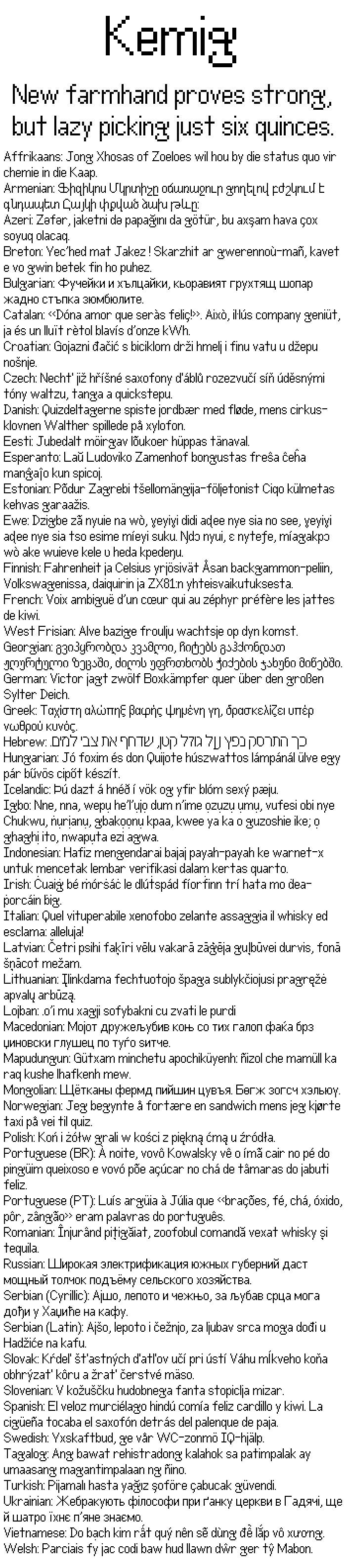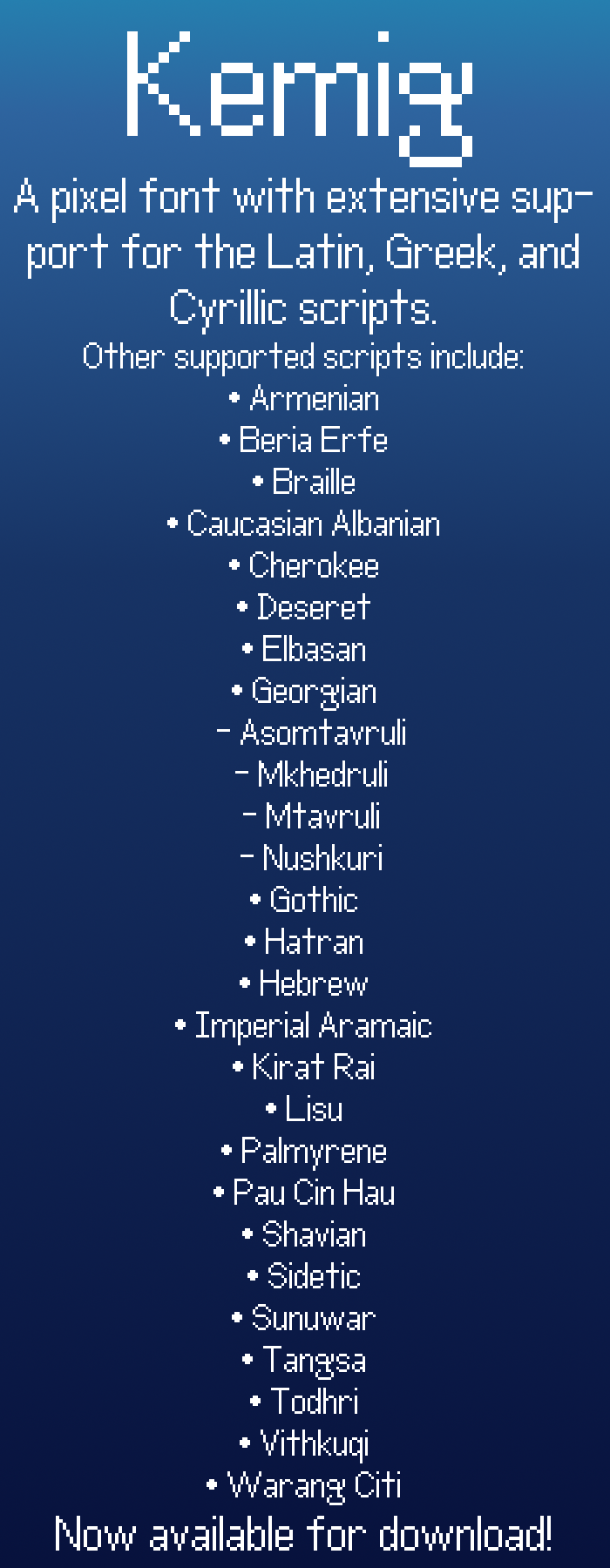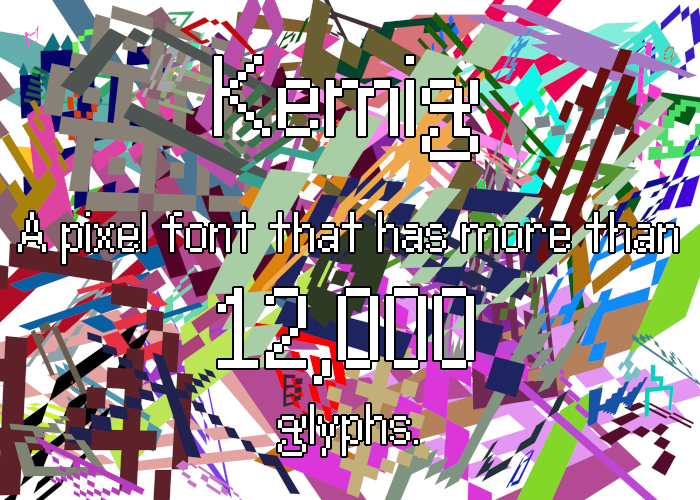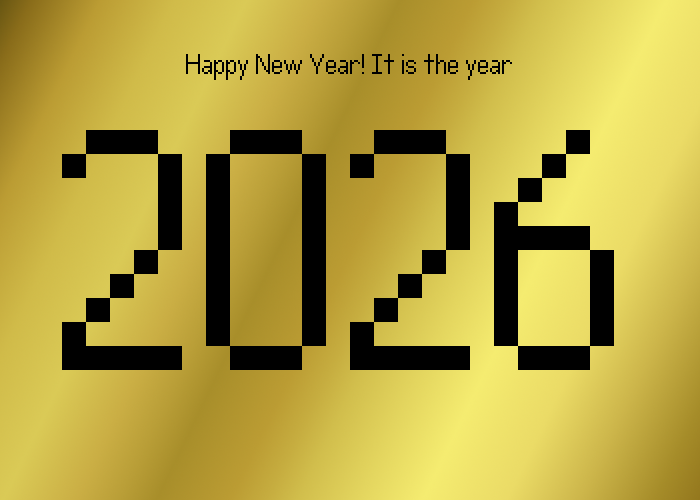
Note: The Bulgarian, Macedonian, and Serbian Cyrillic texts doesn't appear correctly due to FontStruct's lack of locl OpenType feature.
I wonder where Miscellaneous Symbols Supplement is? It should be between Symbols for Legacy Computing Supplement and Znamenny Musical Notation.
When support for OpenType features arrive, I'm definitely adding them to the font.
Impressive work. How do you know so much about Unicode? 10/10
For the characters that display on my system, I built those characters, then I compared them with the code charts on Unicode's website and made adjustments as necessary.
For the characters that don't display on my system (mainly the scripts introduced in Unicode 16 and 17, Kaktovik numerals, and Symbols for Legacy Comuting (+Supplement)), I used the code charts on Unicode's website to have built said characters from.
This Wikipedia page has a list of scripts in both ISO 15924 and Unicode, which the names in the ISO 15924 column appear in the sample above.
Whats with all the g's looking funky
So I surpassed the Staff Pick with most glyphs when adding various arrows, playing cards, dominoes, and mahjong tiles; and in less time than said staff pick itself…
Anyways, If anyone has ideas to make the CJK characters in the mahjong tiles more readable, I'm all ears as many of them aren't very legible right now… (preferably at a 7x9 size so they fit)
What is your quest? Do you want to recreate all assigned characters of Unicode 17.0, including the tens of thousands of CJK characters? That is 159,866 characters at present, and the number may increase with each new version of Unicode. I'm just curious.
@Frodo7 The glyph limit of 65,535 already prevents that from happening in a single font file.
I don't have plans on doing the scripts that require OpenType features to get working correctly and/or requires the use of combining characters (Arabic, Devanagari, Bengali, etc.), or CJK because too many characters, or Cuneiform or Hieroglyphs because too detailed and too many characters.
So most likely the remaining symbols, mathematical operators, arrows, and dingbats in Unicode.
P.S. You can find symbols for square roots with 0-9 in the Private Use Area so you can make stuff like ¹²√(7¹⁹) look more nice
10k glyphs?! how are you that fast lol
anyway, do you plan to add southeast asian scripts? (such as thai, khmer, etc.)
Thai and Khmer fall under the category of scripts that require OpenType features to get working correctly and/or requires the use of combining characters, so I don't think I can do either here.
But I do have plans on making expansions to the enclosed alphanumerics in the Private Use Area.
this looks like similar to pixicraft because some glyphs are similar to it
The background in the above sample is a sample of glyphs from the font in random sizes, colors, and orientations.
the fact that there are >39 in the same orientation and in white is improbable...
i will give this font a 10/10, but the only problem here is this font doesn’t support combining characters
@lvqille That text is not part of the background in the sample.
@dhdhdh FontStruct doesn't support the mark/mkmk features, so text with combining marks might look a bit off in some software.